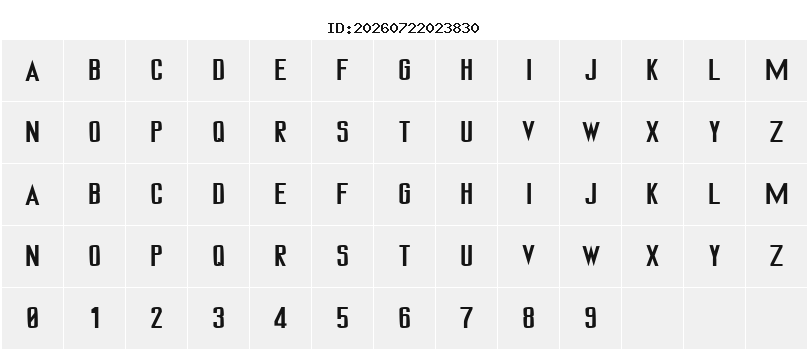
FZ BASIC 32 Preview
About FZ BASIC 32.ttf
FZ BASIC 32.ttf is a modern, elegant sans-serif font designed for ultimate readability and visual harmony. Perfect for branding, headlines, web design, and print materials.